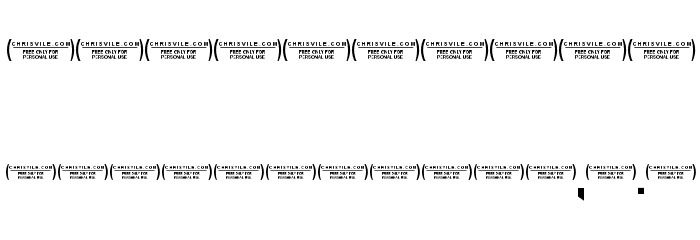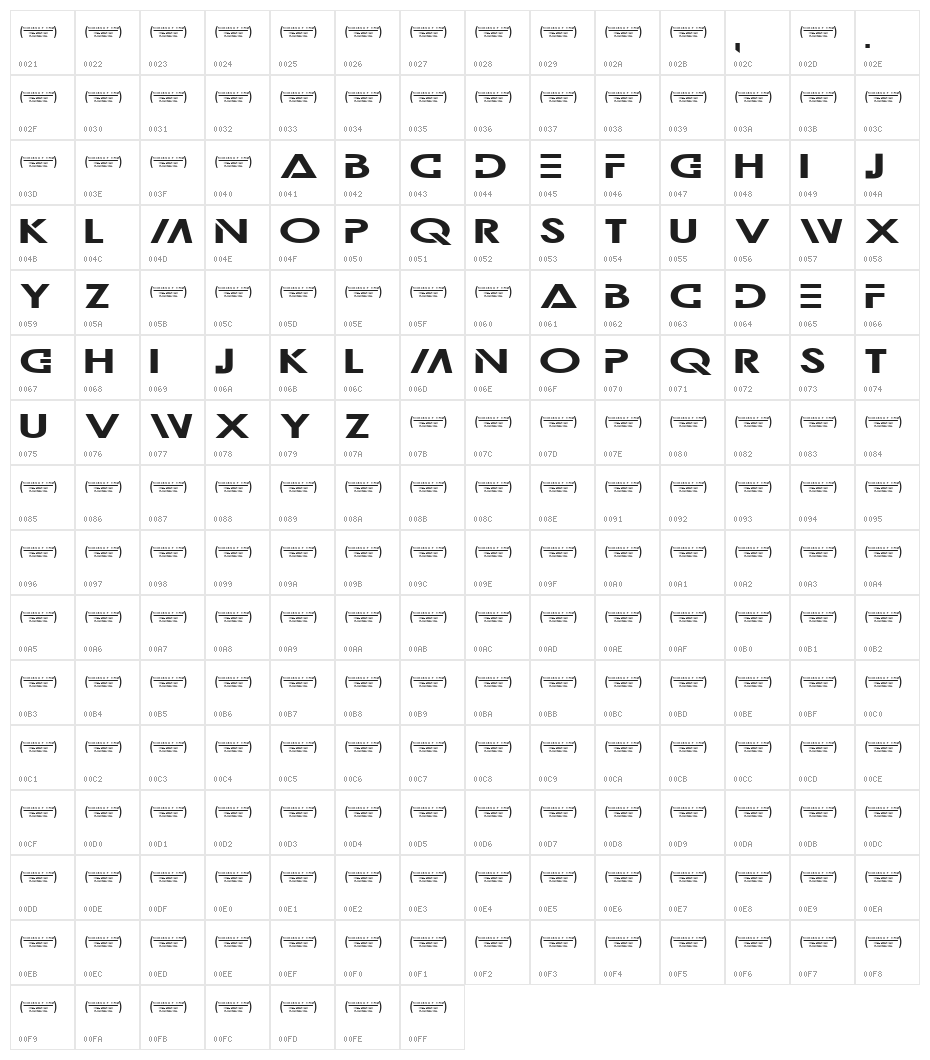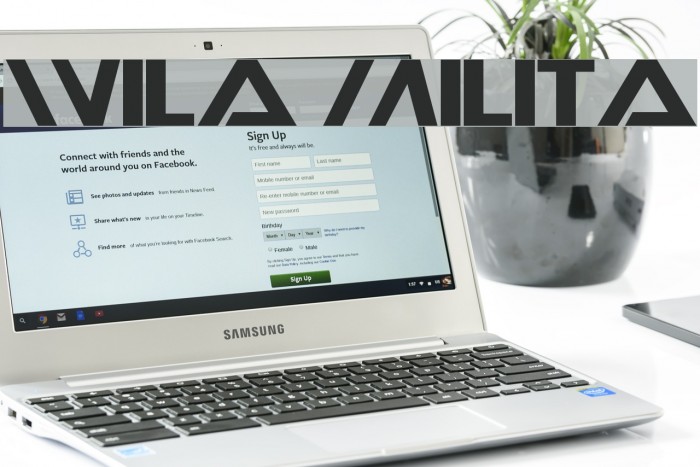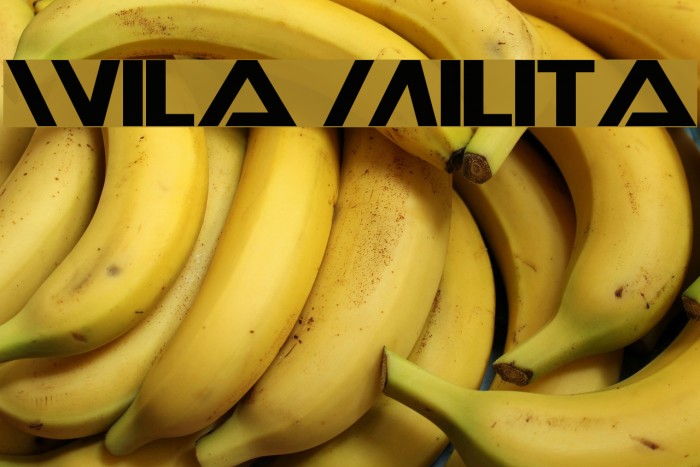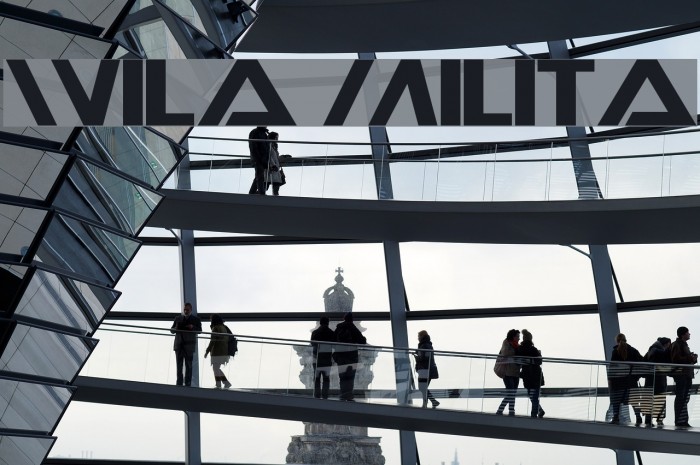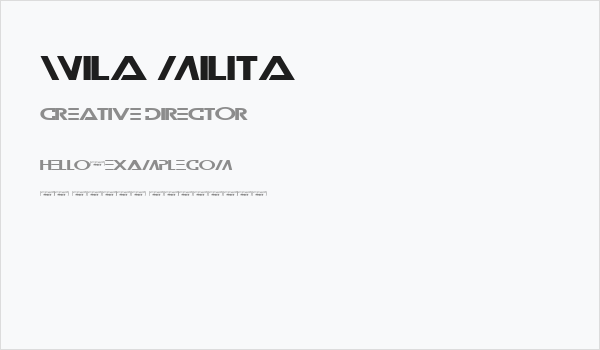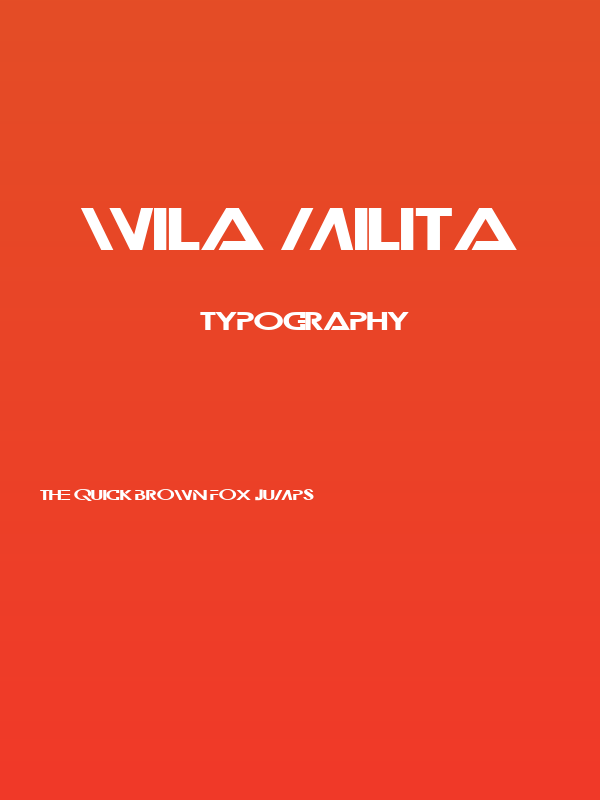
Wila Milita Font
Wila Milita Description
This font features a bold, geometric design with a futuristic and modern aesthetic. The characters are constructed with sharp angles and clean lines, creating a sense of precision and strength. The uppercase letters are particularly striking, with unique cutouts and shapes that add a distinctive flair. The overall appearance is sleek and dynamic, making it ideal for projects that require a strong visual impact. The font's style is reminiscent of digital or technological themes, making it suitable for contemporary designs.
| Proposed Projects | Ideal for technology branding, sci-fi themed posters, video game titles, and modern advertising campaigns. |